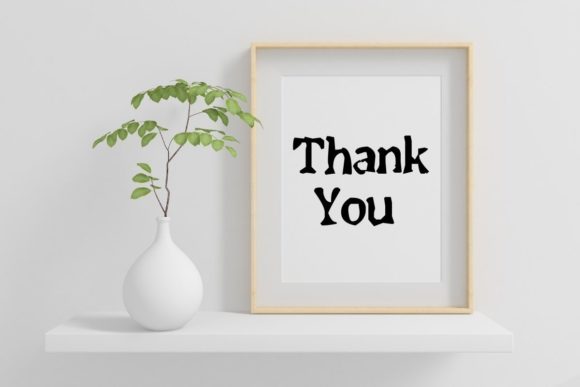
Introduction to Old Newspaper Font
You know that feeling when you’re brainstorming ideas for a creative project and you stumble upon a font that instantly transports you to a bygone era? For me, that moment came when I discovered the Old Newspaper Font. Its distressed letters and vintage charm immediately sparked a world of possibilities, from retro-themed posters to distressed text overlays.
As a designer, finding the perfect font can be the difference between a mediocre design and a showstopper. That’s why I’m excited to share this hidden gem with you. The Old Newspaper Font is a high-quality design resource that’s perfect for adding an authentic touch to your creative projects. Whether you’re working on a project that requires a transparent background or a distressed texture, this font has got you covered.
Key Features of Old Newspaper Font
- Unique, distressed design that resembles old newspaper typography, perfect for creative projects.
- High-quality font with transparent background, ideal for use in graphic design and digital art.
- Large character set with extended Latin support, making it suitable for a wide range of languages and applications.
- High-resolution font, designed for use in high-quality printing and digital displays.
- Perfect for designers and artists looking to add a vintage, nostalgic touch to their work, ideal for creative projects and design inspiration.
Honest Review: Old Newspaper Font
I recently stumbled upon the Old Newspaper Font, and I must say it’s a great addition to any designer’s arsenal. This font is perfect for creating a nostalgic and vintage vibe in your creative project.
- High-quality design that’s reminiscent of old newspaper headlines
- Works well with transparent backgrounds, adding an extra layer of depth to your design
- Limited character set, which may not be suitable for long-form text
- May not be as versatile as other fonts, which can be limiting in certain design scenarios
Overall, I’m impressed with the Old Newspaper Font. It’s a great resource for designers who want to add a touch of nostalgia to their projects. While it may have some limitations, the quality of the design and the fact that it’s free make it a valuable addition to any design library.
Old Newspaper Font is commonly used for creative projects that require a vintage or distressed look. It’s perfect for designing posters, flyers, and brochures for events, products, or services. You can also use it for creating a unique and eye-catching title or heading for your website or social media page.
For the best results, use Old Newspaper Font in conjunction with a high-quality image or background. Experiment with different font sizes and colors to create a unique look. You can also use the font in combination with other design elements, such as textures or patterns, to add depth and interest to your design.
Q: What is the recommended font size for the Old Newspaper Font?
The recommended font size for the Old Newspaper Font varies depending on the project and desired level of detail. For a clear and readable text, we recommend using font sizes between 12 and 24 points. For a more distressed or vintage look, you can use smaller font sizes, such as 8 or 10 points.